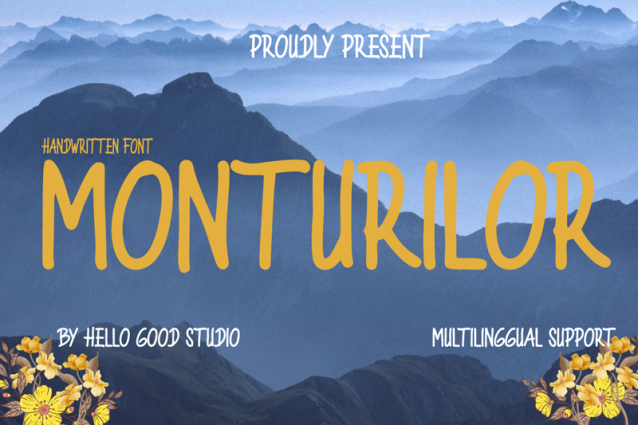
Monturilor Font
Monturilor Font is a simple and friendly handwritten font. Its natural and unique style makes it incredibly fitting to a large pool of designs. The only limit is your imagination!